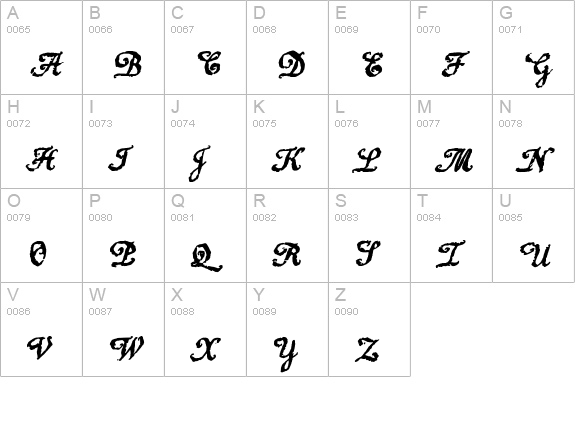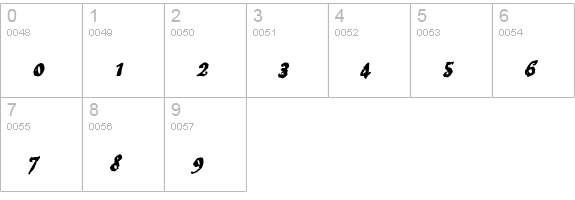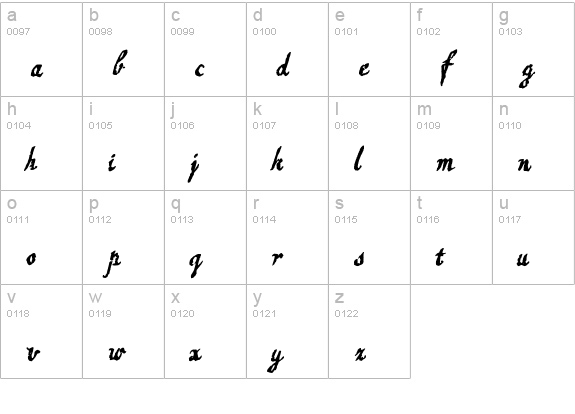
Raymond Font Details
Raymond font is a stunning and versatile typeface that exudes elegance and sophistication. With its clean lines and classic design, Raymond is perfect for a wide range of projects, from branding and advertising to invitations and packaging. This timeless font is sure to make your text stand out and leave a lasting impression on your audience. The best part? Raymond font is available for free download at FontsMarket.com. This means you can access this high-quality typeface without having to spend a dime, making it a valuable addition to your font library. Don't miss out on the opportunity to enhance your designs with the beauty and style of Raymond font – download it today and take your creations to the next level.